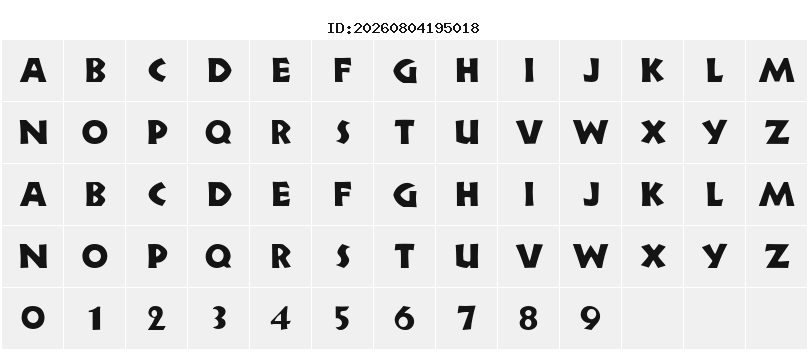
Newfoundland Preview
• Font Name: Newfoundland
• Font ID: Newfoundland Plain
• Full Font Name: Newfoundland
• PostScript Name: NewfoundlandPlain
• Character Count: 238
About Newfoundland.ttf
Newfoundland.ttf is a modern, elegant sans-serif font designed for ultimate readability and visual harmony. Perfect for branding, headlines, web design, and print materials.